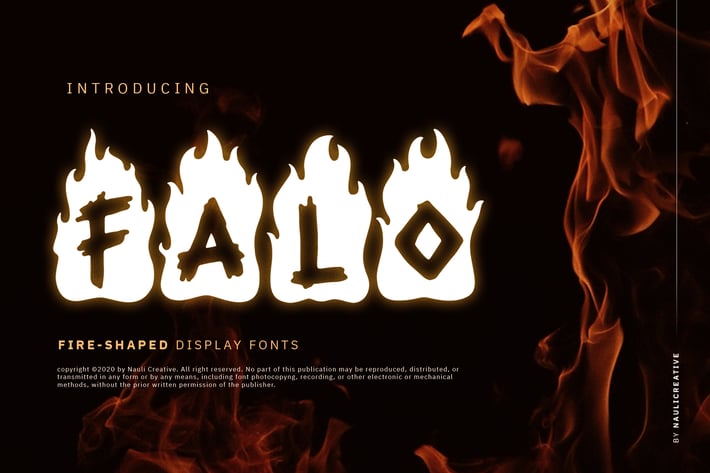
Falo - Flaming Decorative Font
Are you looking for a unique flaming decorative font? We can help! Try to download our Falo font. The font is suitable to use for all purpose. Try to use it on banner ads, event, greeting card, poster, postcard, photography, branding, editorial, quote, music, travelling, and many more to see the best of it :)